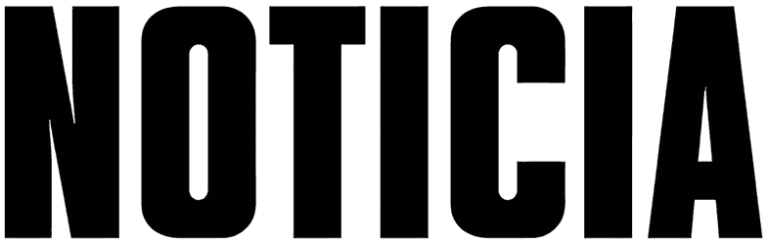
Kubrick Display Font
For a modern and playful layout, using a modest but cute letterform like this cartoon font would be a perfect choice. This unique item doesn’t support lowercase letters but it will be enough to give a distinct form to yo…
For a modern and playful layout, using a modest but cute letterform like this cartoon font would be a perfect choice. This unique item doesn’t support lowercase letters but it will be enough to give a distinct form to your words. Kubrick Display font has the potential to make a minimal and glossy form to your text.
Kubrick Display.